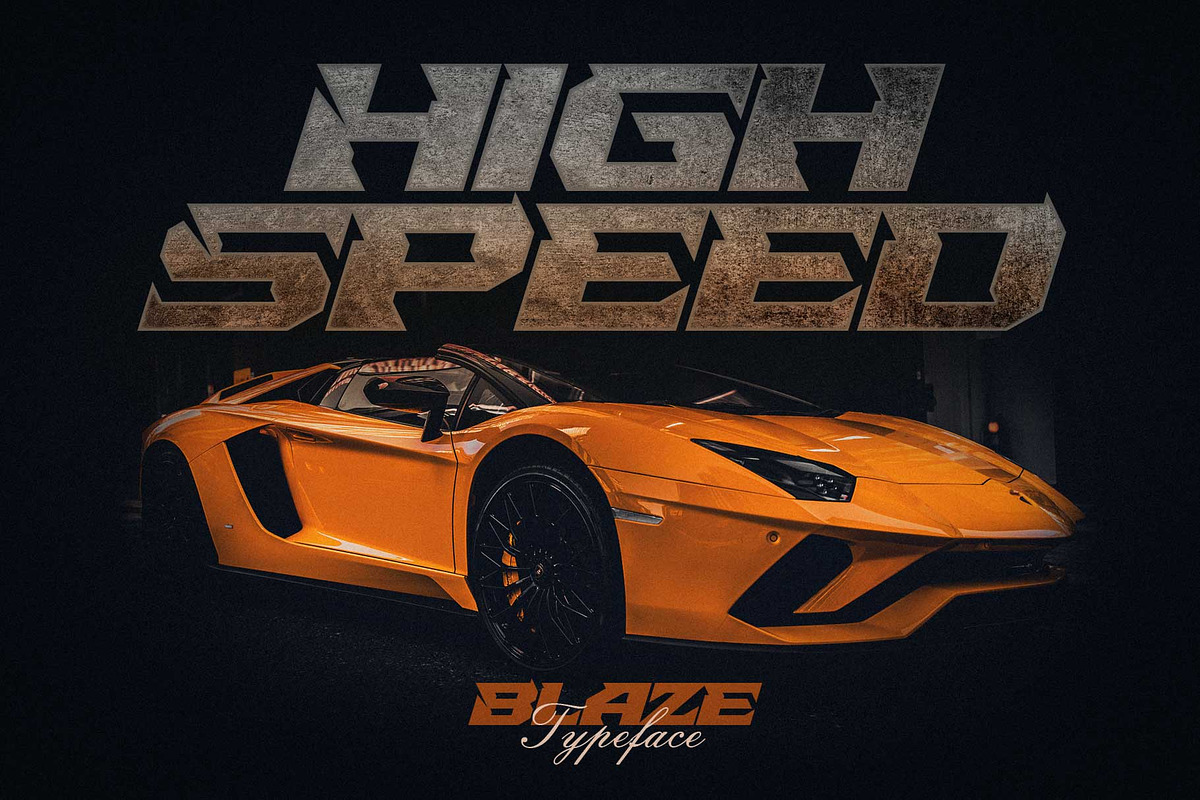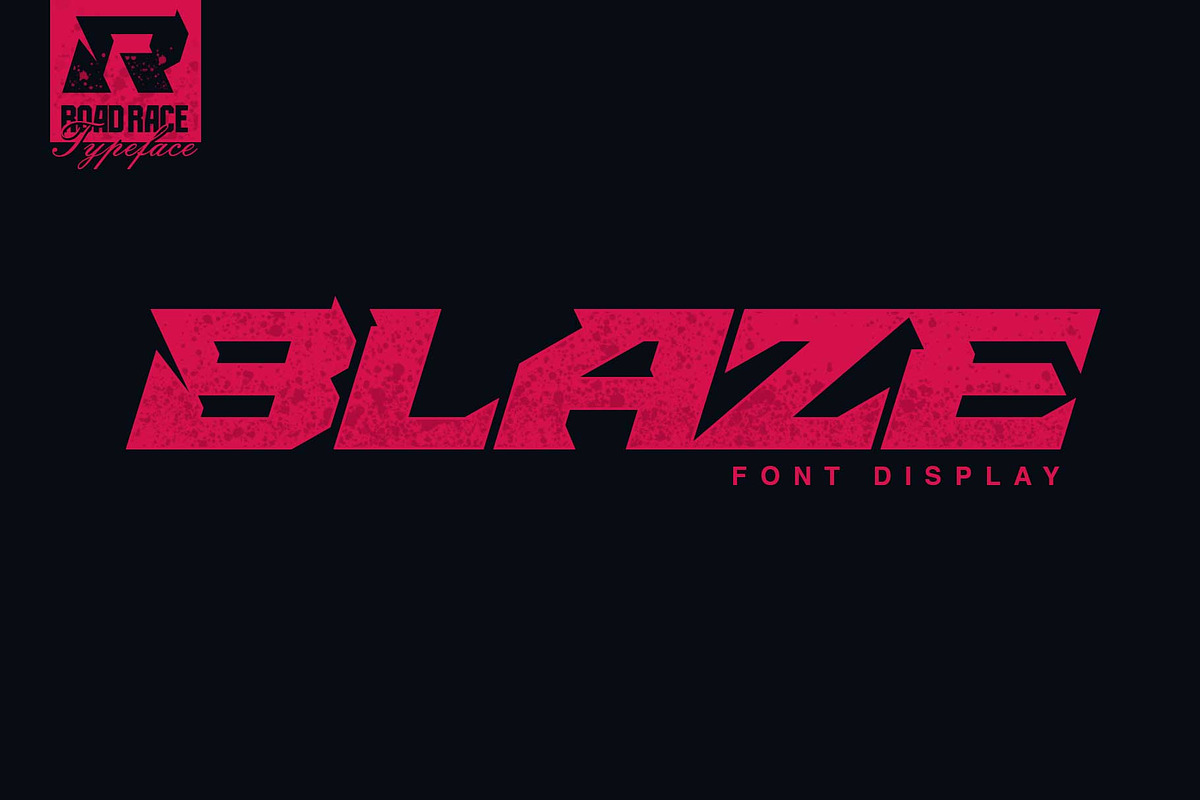
Blaze
Introduce. this is my newest product, the font named "Blaze". I made this font with a unique style, has a futuristic and bold style. will be very suitable to complement your work of art. of course it will look very good when combined with a graphic design that has a racing, fighter theme or can also be used for logos, film titles and so on.